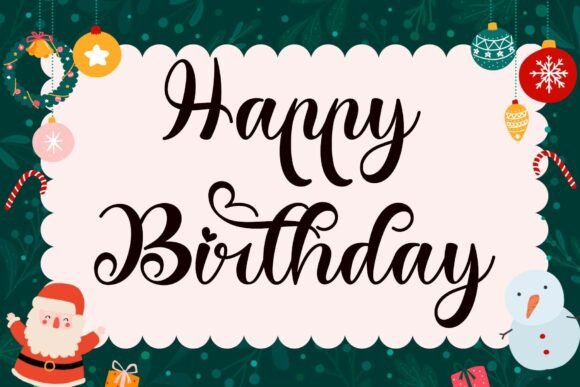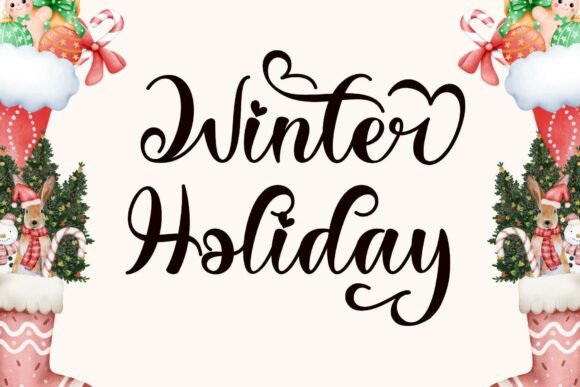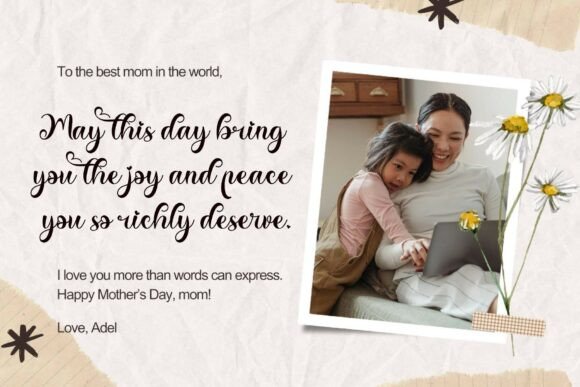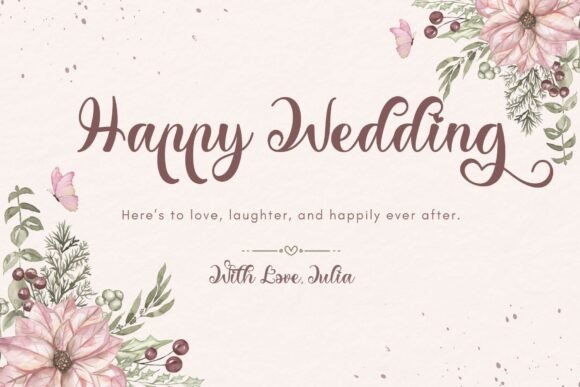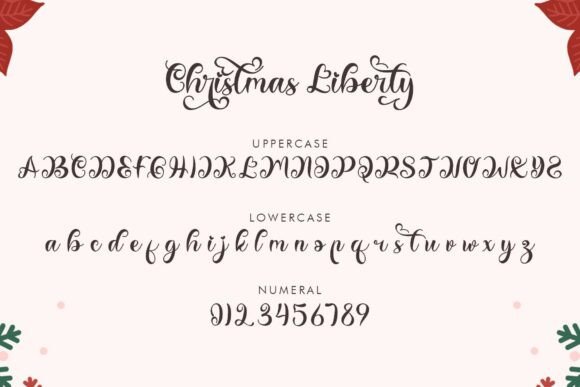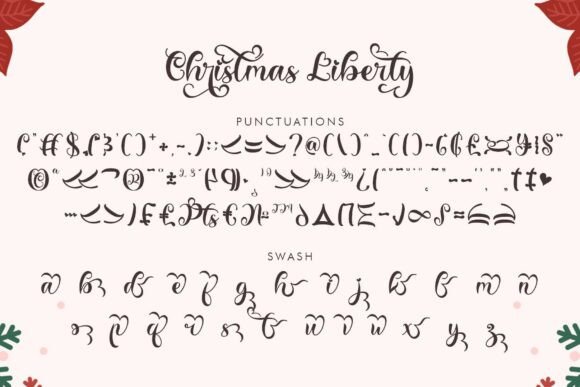
Introducing Christmas Liberty Otf Font: The Ultimate Festive Script Font
Are you looking for a font that captures the essence of the holiday season? Look no further than Christmas Liberty Otf Font, a beautiful handwritten script font that sparkles with festive charm and elegance. Designed with graceful flourishes, heart-tipped strokes, and playful loops, this font is perfect for adding a touch of luxury and sophistication to your holiday designs.
A Font that Embodies the Spirit of Christmas
Christmas Liberty is more than just a font – it’s an experience. Its luxurious swashes and ligatures bring a handcrafted sophistication that’s ideal for Christmas cards, winter wedding invitations, gift tags, festive branding, and seasonal social media posts. Every character is crafted with love, featuring both decorative punctuation and stylish swashes to give your text a personalized, magical touch.
Key Features of Christmas Liberty Otf Font
- Graceful Flourishes: Christmas Liberty features beautiful, sweeping flourishes that add a touch of elegance to any design.
- Heart-Tipped Strokes: The font’s heart-tipped strokes add a playful, whimsical touch that’s perfect for holiday designs.
- Playful Loops: The font’s playful loops and swashes bring a sense of fun and joy to any design.
- Luxurious Swashes: Christmas Liberty features luxurious swashes and ligatures that add a touch of sophistication to any design.
Christmas Liberty Otf Font is perfect for designers and crafters looking to add a touch of festive charm to their holiday designs. Whether you’re creating Christmas cards, winter wedding invitations, or festive branding, this font is sure to impress. Its luxurious swashes and ligatures bring a handcrafted sophistication that’s ideal for:
- Christmas cards and invitations
- Winter wedding invitations and stationery
- Gift tags and labels
- Festive branding and packaging
- Seasonal social media posts and graphics
Why Choose Christmas Liberty Otf Font?
With so many fonts to choose from, why choose Christmas Liberty Otf Font? Here are just a few reasons:
- Unique and Elegant: Christmas Liberty is a truly unique and elegant font that will set your designs apart from the rest.
- High-Quality Design: The font is designed with high-quality, intricate details that will make your designs shine.
- Versatile: Christmas Liberty is a versatile font that can be used for a wide range of holiday designs, from Christmas cards to festive branding.
Get Ready to Add Some Holiday Magic to Your Designs